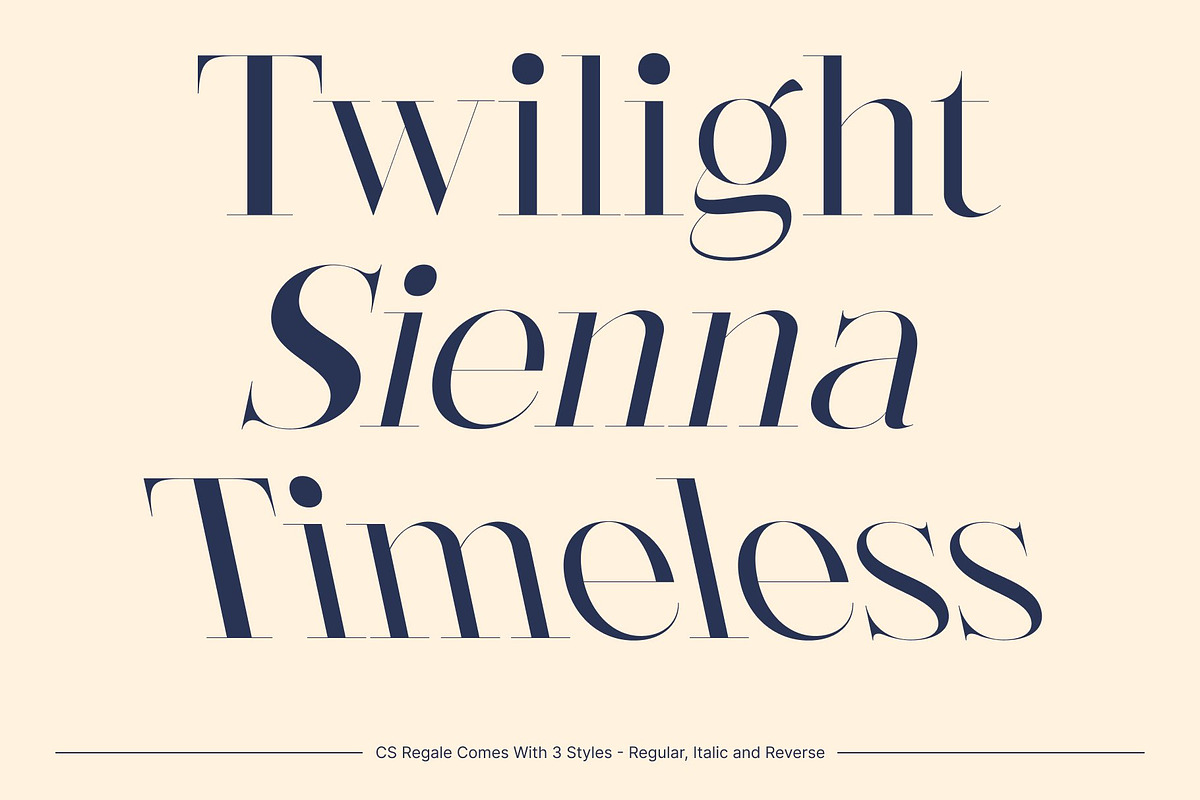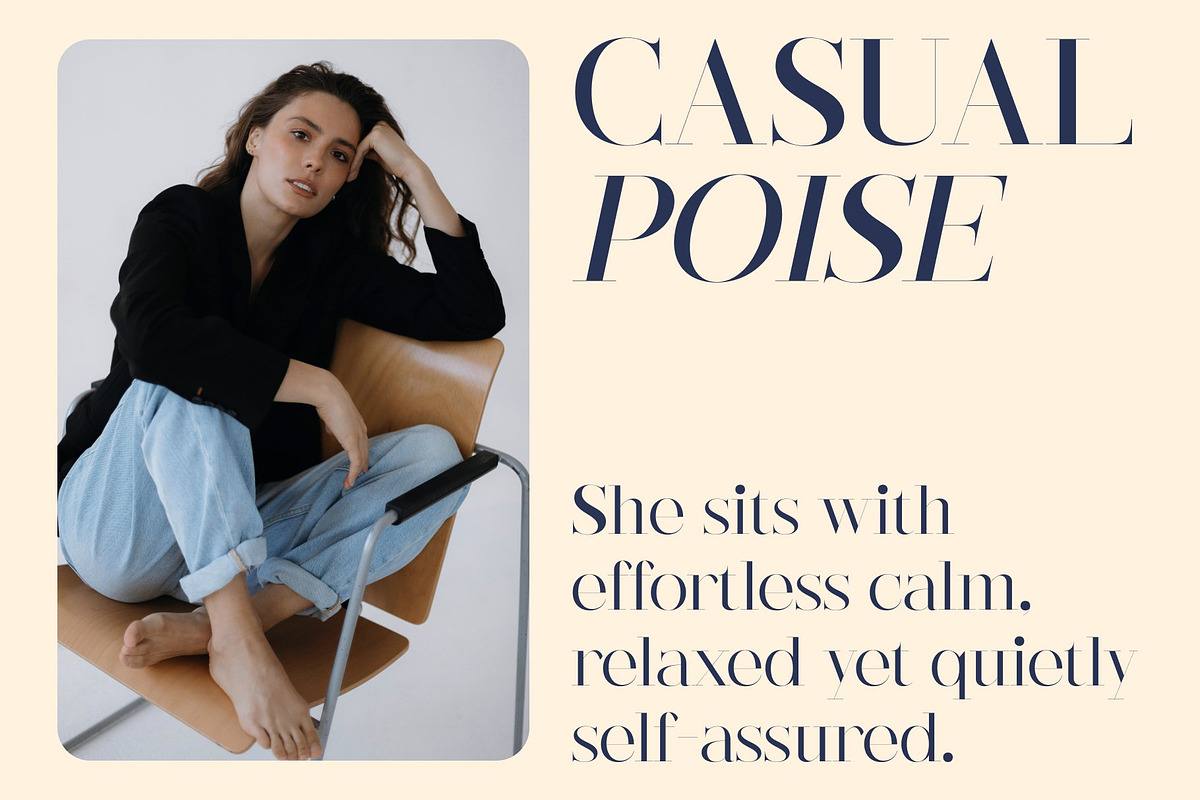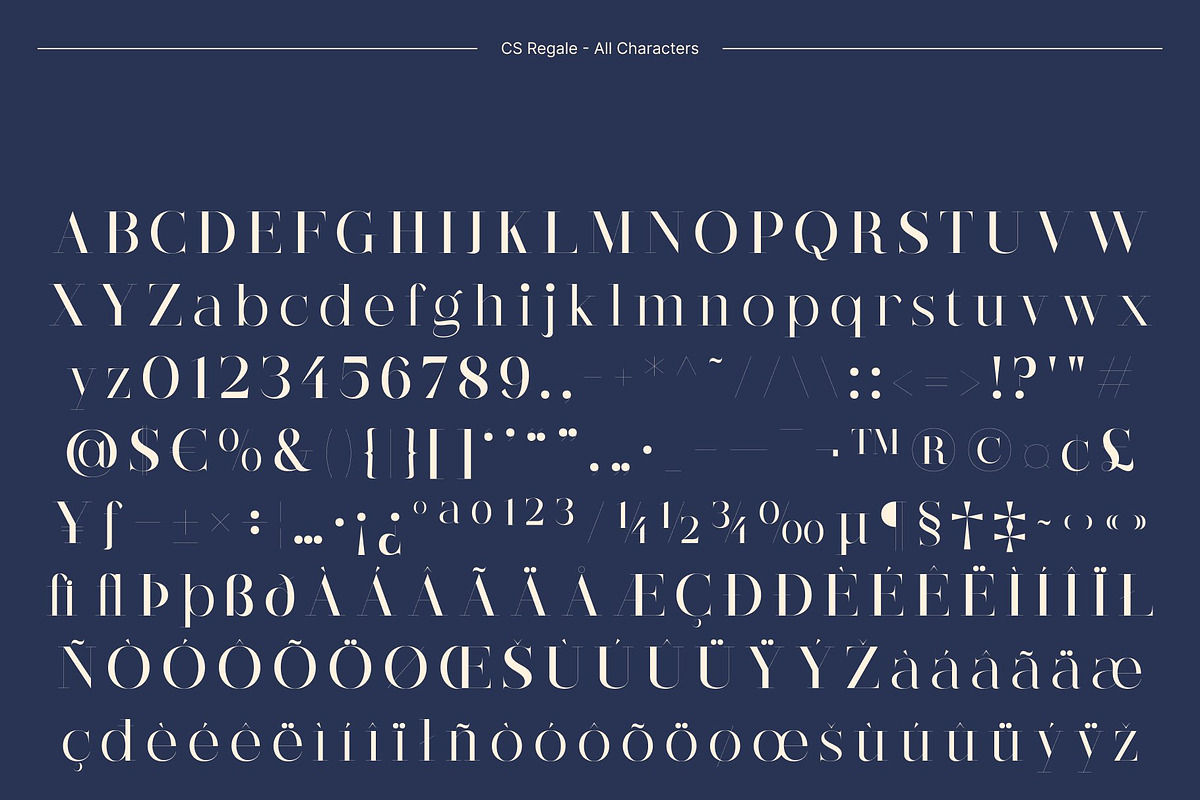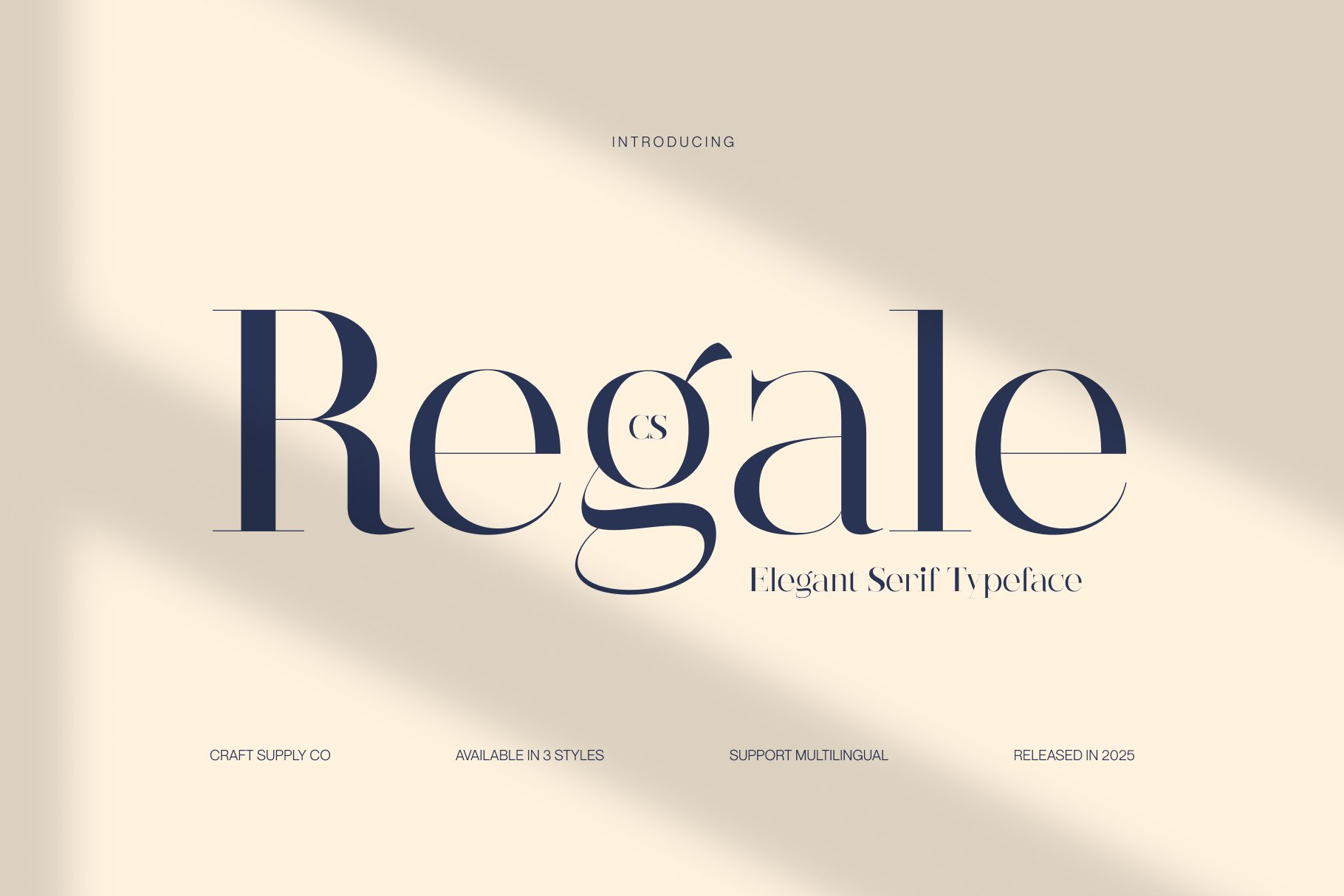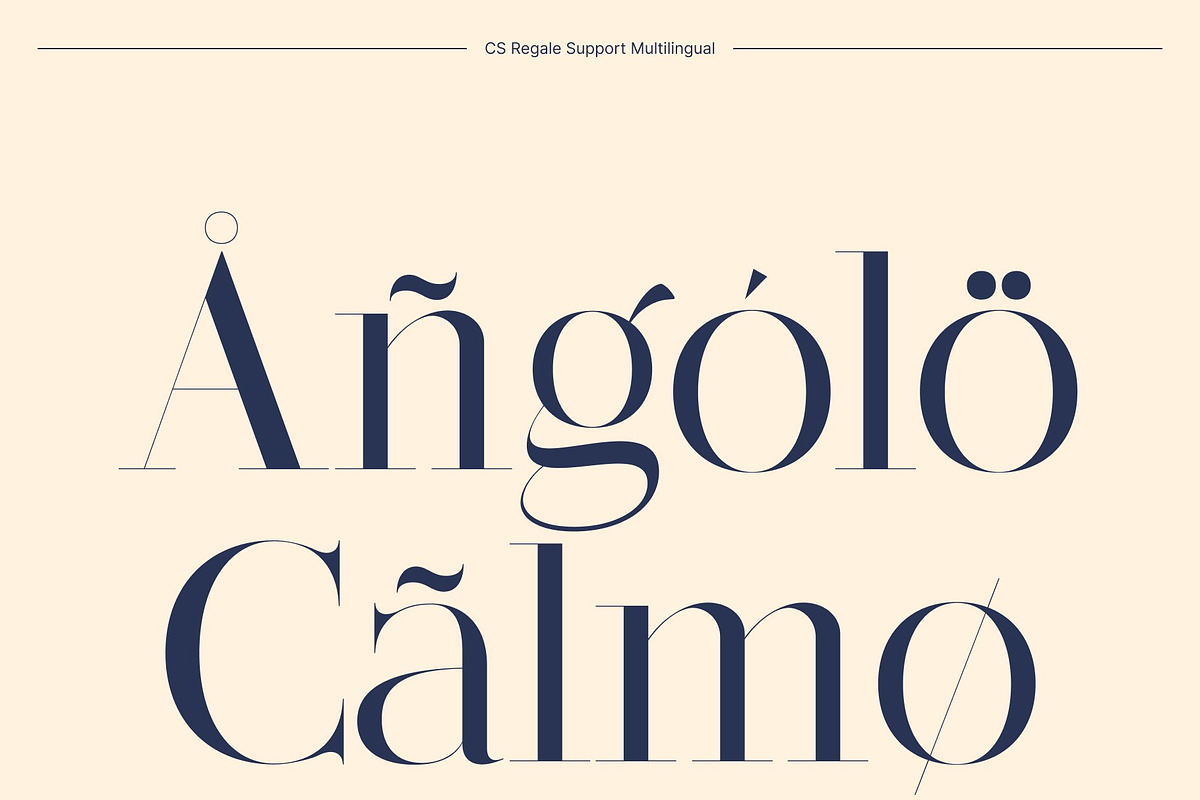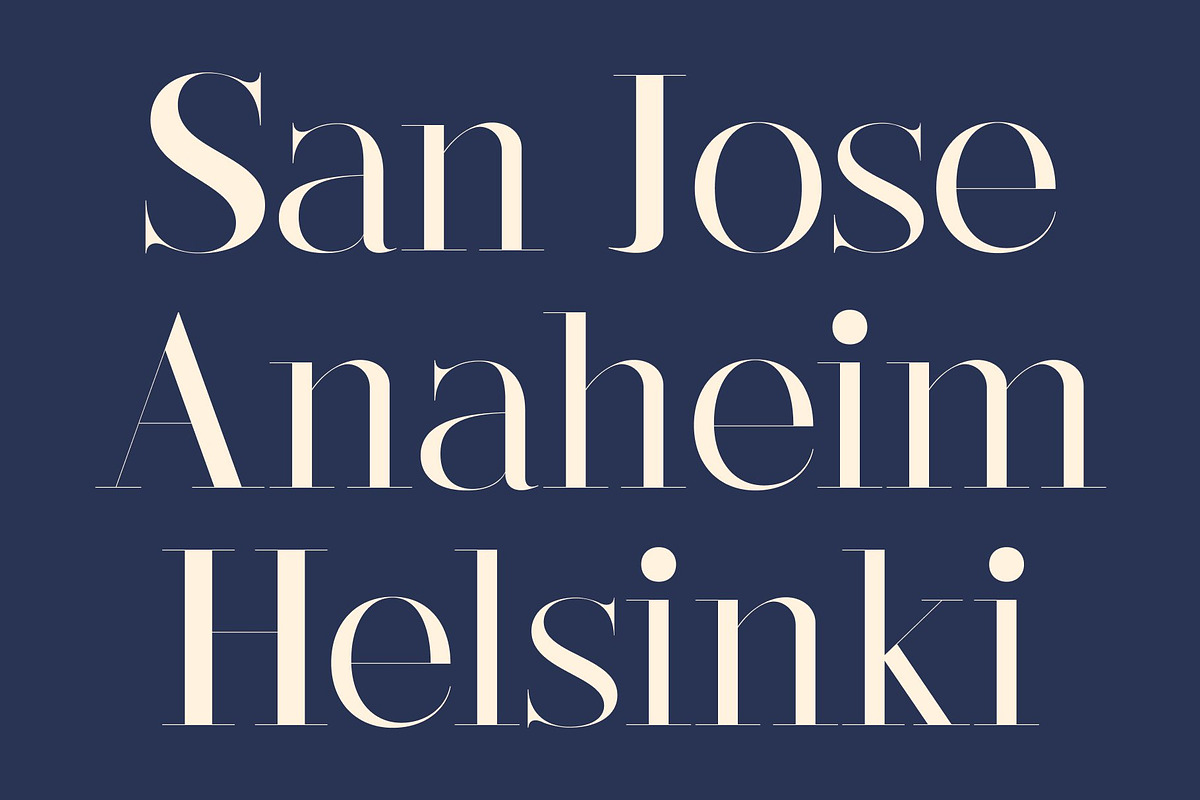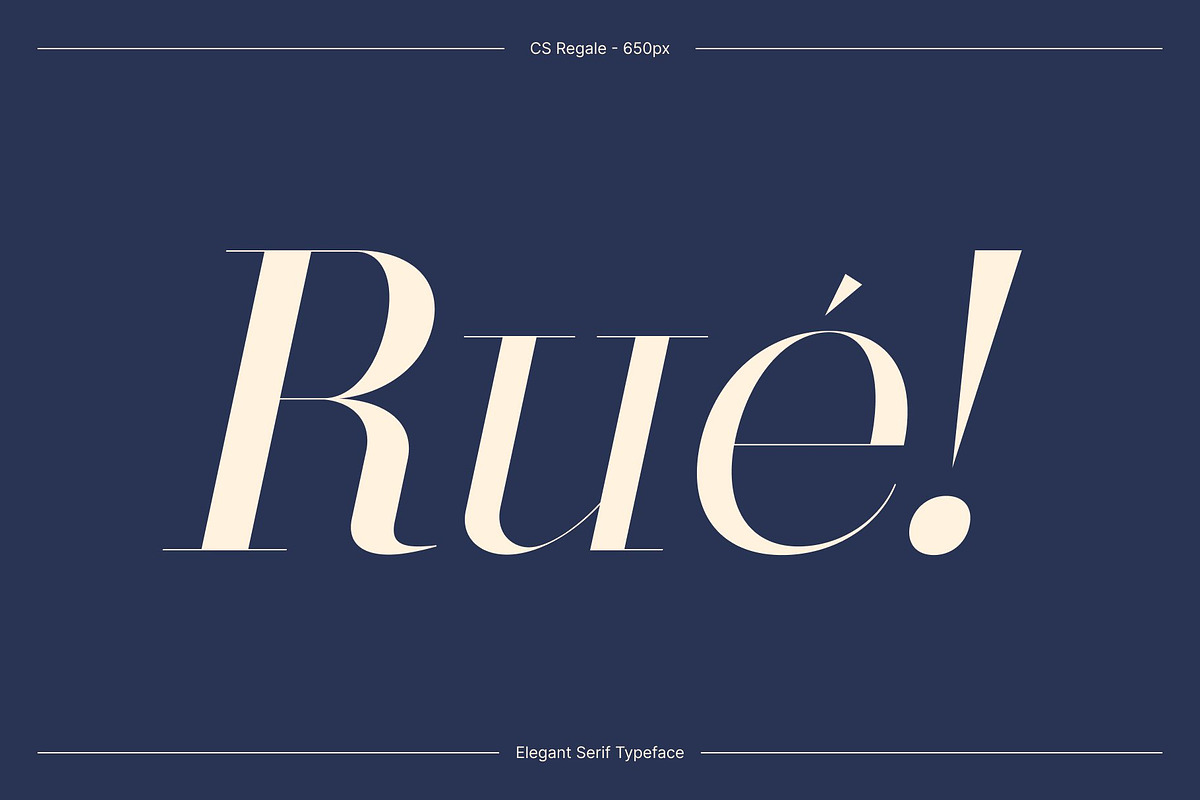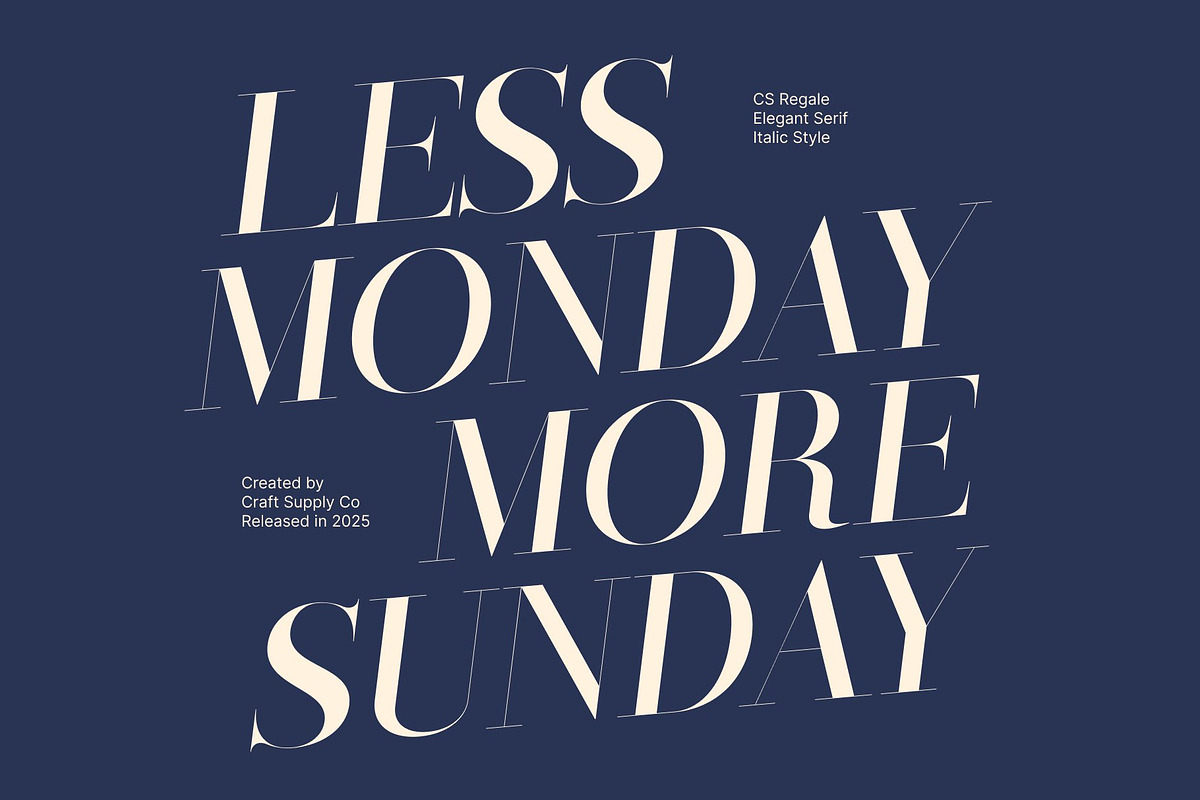
CS Regale – Elegant Serif Font
CS Regale – Elegant Serif Font with Refined Luxury
Elegant Serif Display Font This is an elegant serif font crafted to express polish, refinement, and timeless sophistication. Designed with graceful proportions and carefully shaped details, this typeface delivers an exclusive and luxurious impression. Its refined character makes an excellent choice for designs that demand elegance, prestige, and a high-end visual presence.
Refined Letterforms with Classic Elegance Each character in this font is thoughtfully constructed with smooth curves, balanced contrast, and delicate serifs. The refined structure creates a harmonious flow that feels graceful and confident without appearing excessive. This attention to detail enhances readability while reinforcing a sense of quality and craftsmanship.
Sophisticated Style for Premium Visual Identity This font excels in projects that require a polished and upscale tone. Its elegant serif form communicates exclusivity and authority, making it ideal for luxury branding, editorial layouts, and premium product presentations. The font adds a sophisticated voice that elevates visual storytelling and strengthens brand perception.
Perfect for High-End Branding and Editorial Use Designed for versatility within refined contexts, performs beautifully in high-end branding, fashion editorials, packaging, logos, and promotional materials. Its timeless elegance ensures long-lasting appeal across both print and digital applications. Whether used as a headline or a signature typographic element, brings a sense of luxury, confidence, and enduring style to every design it touches.
- CS Regale Regular
- CS Regale Italic
- CS Regale Reverse Italic